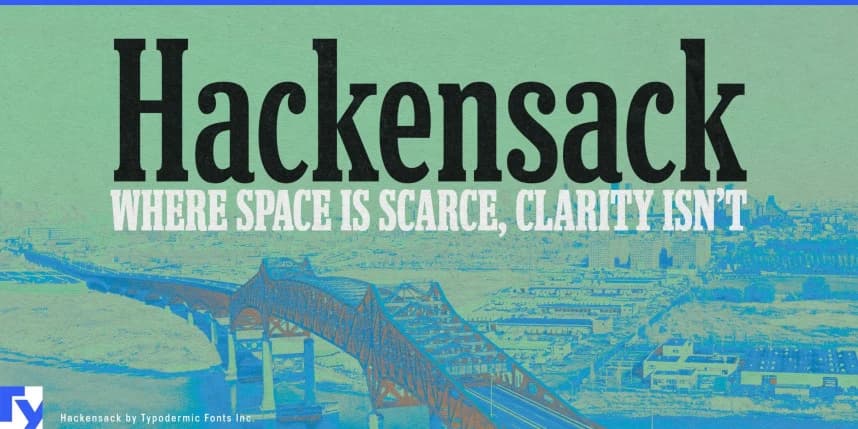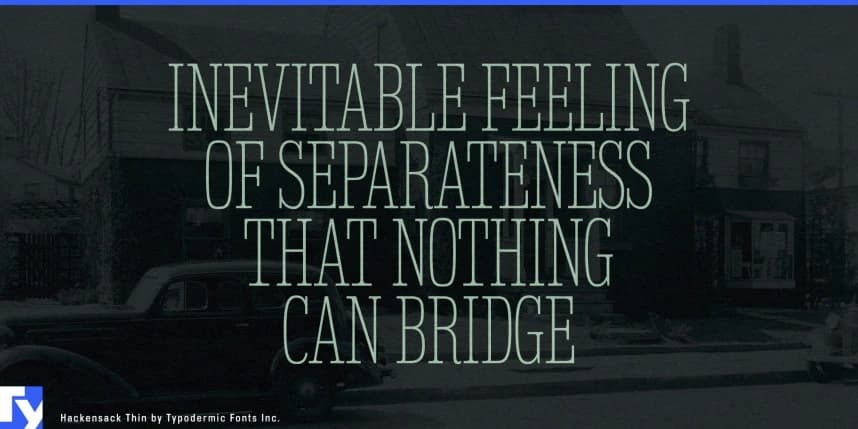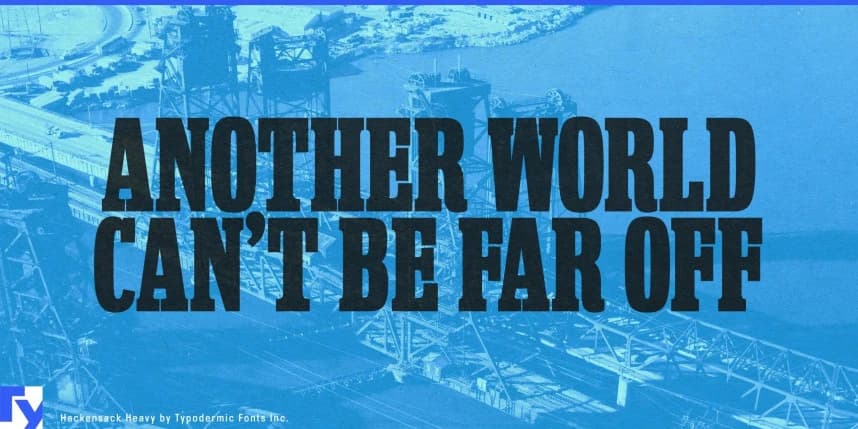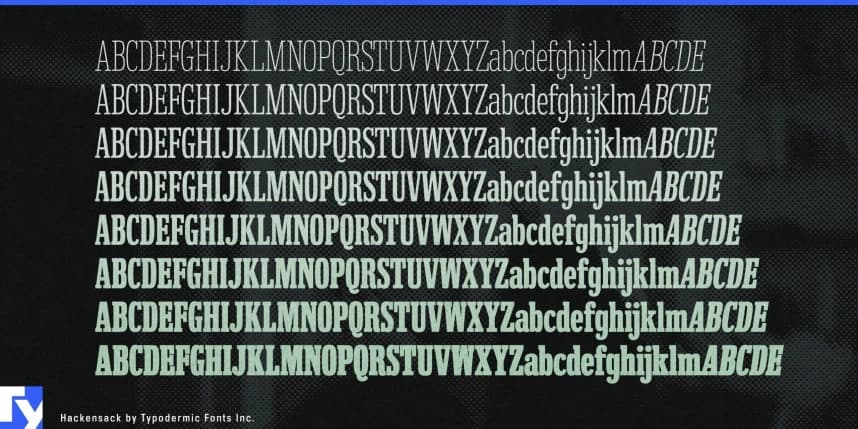
Hackensack Font
Hackensack Font is a compact slab serif that draws from Clarendon without inheriting its fuss. The proportions are tight and efficient; the slabs are firm and purposeful; details like ball terminals add a touch of warmth without tipping into nostalgia.